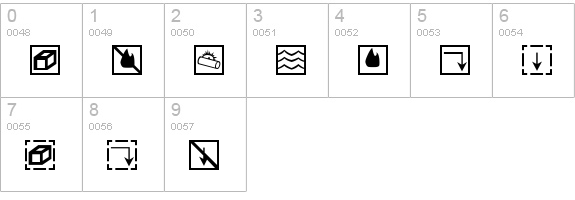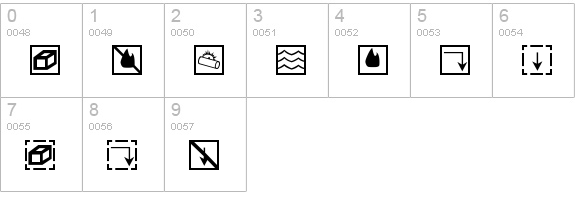
BCMELP EPD Symbols Font Details
The BCMELP EPD Symbols font is a comprehensive collection of symbols designed to enhance your electronic product documentation. With a wide range of symbols including arrows, icons, and technical symbols, this font is perfect for adding clarity and visual interest to your design projects. Best of all, this font is available for free download at FontsMarket.com, making it easily accessible for all designers and creators. Whether you're working on user manuals, datasheets, or presentations, the BCMELP EPD Symbols font is a valuable resource to have in your toolkit. Enhance your designs today with this versatile and user-friendly font.